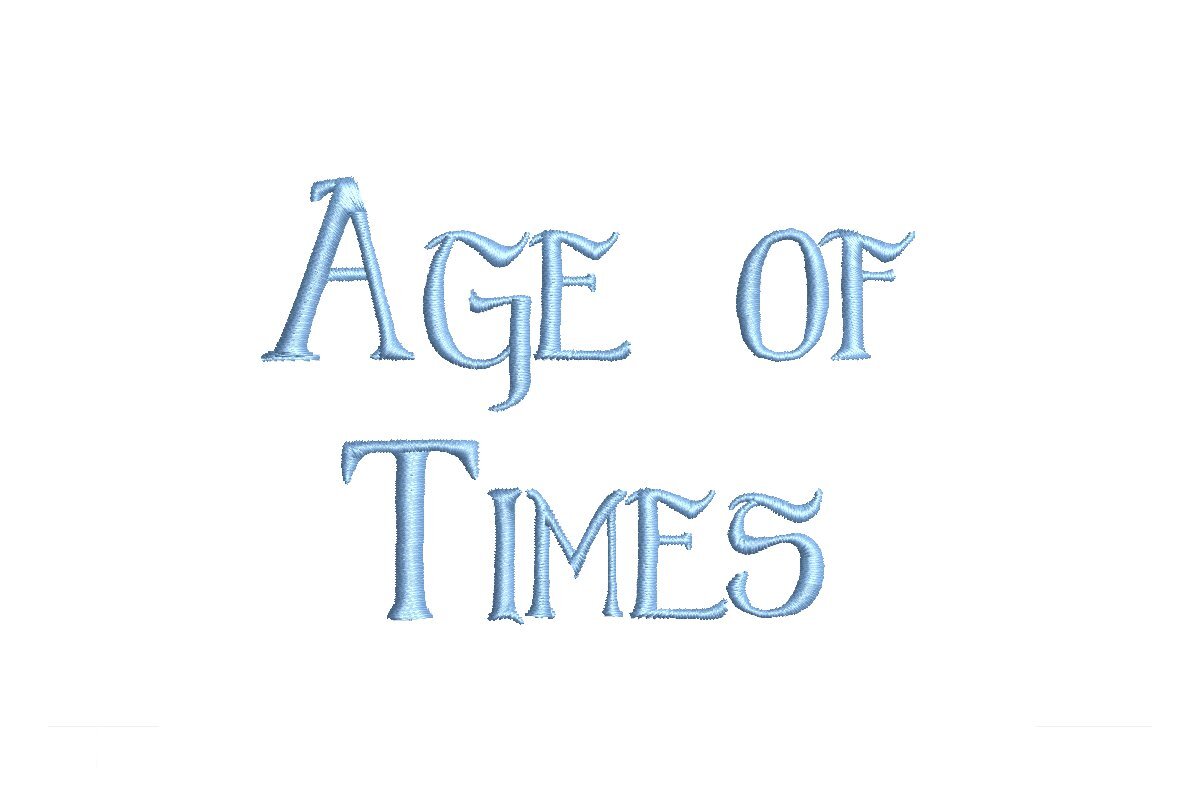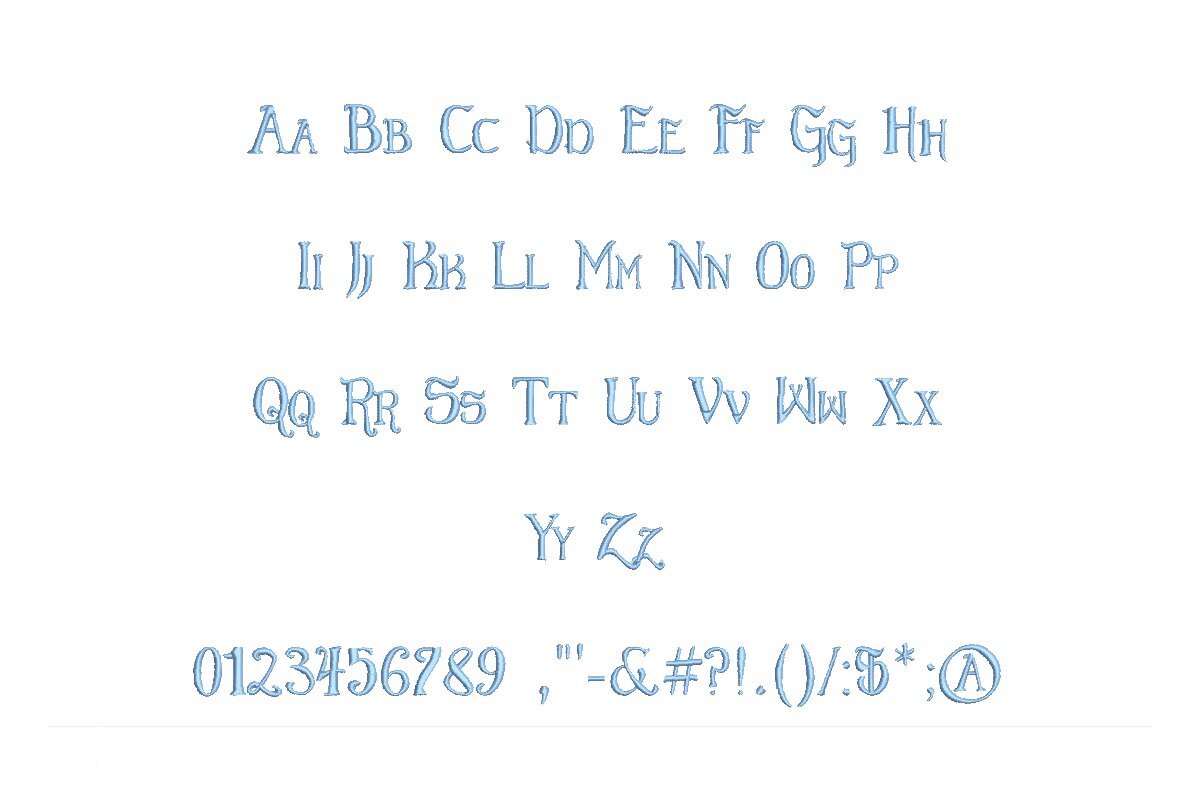
Age of Times ESA machine embroidery font alphabet preview
Age of Times ESA machine embroidery font additional lettering sample
Age of Times ESA Font
Introducing Age of Times ESA Font – Your Ultimate Embroidery Solution! Crafted for Wilcom Studio e4.5.6 and Hatch 3 versions and beyond, this versatile font guarantees top-notch embroidery results. Elevate your designs with its timeless, elegant aesthetic. Whether you're a professional embroiderer or a hobbyist, this font unlocks a world of creative possibilities. Seamlessly compatible with the latest software versions, it ensures hassle-free integration, saving you valuable time. Precision and clarity define every stitch, making your embroidery projects stand out. Don't miss the chance to add Age of Times ESA Font to your toolbox. Get started today and watch your designs come to life!